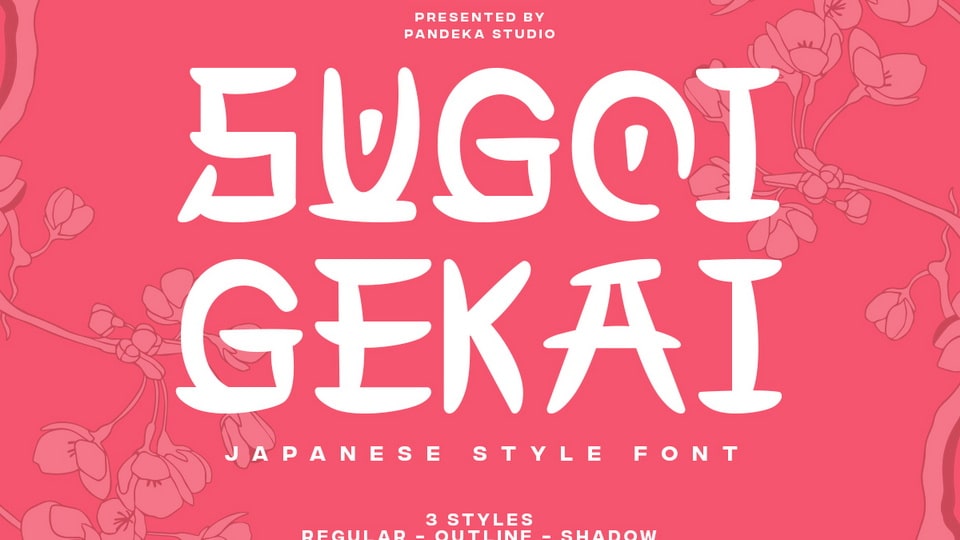
Download Sugoi Gekai font, a beautifully crafted typeface that blends the charm of traditional Japanese and Chinese calligraphy with a modern, stylish touch.